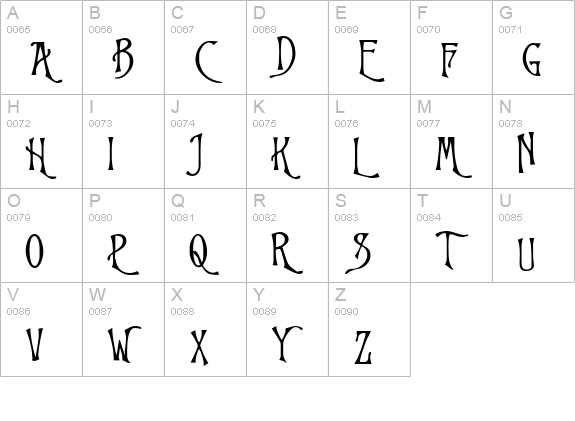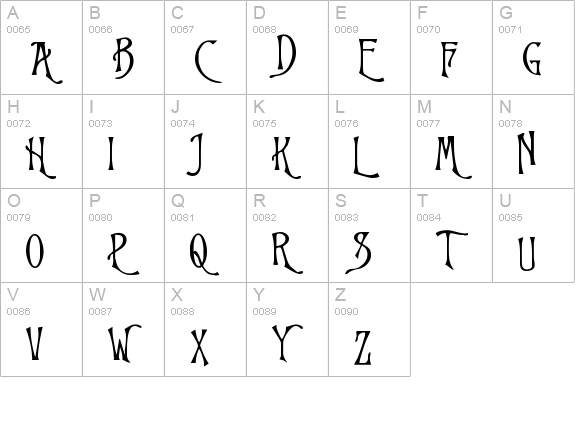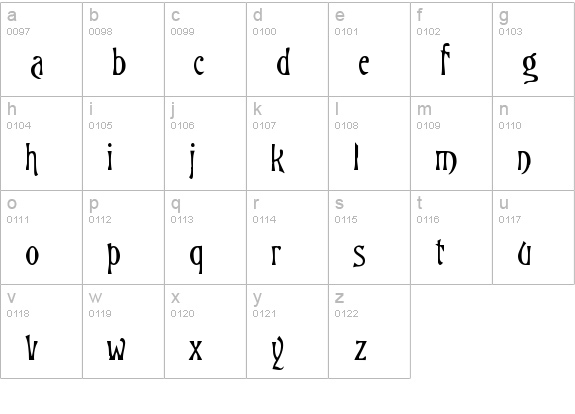
Burton's Nightmare Font Details
Burton's Nightmare font is a hauntingly beautiful typeface inspired by the dark and whimsical style of Tim Burton's iconic films. With its twisted and eerie design, this font perfectly captures the spirit of Halloween and the macabre. Each letter is intricately crafted with a gothic touch, making it ideal for adding a touch of spookiness to your projects. The Burton's Nightmare font is not only visually striking but also versatile, suitable for a wide range of design projects such as posters, invitations, and branding materials. Its unique and distinctive appearance is sure to make your text stand out and leave a lasting impression on your audience. What's even better is that Burton's Nightmare font is available for free download at FontsMarket.com. So go ahead and unleash your creativity with this chillingly captivating font, perfect for adding a touch of darkness to your designs.